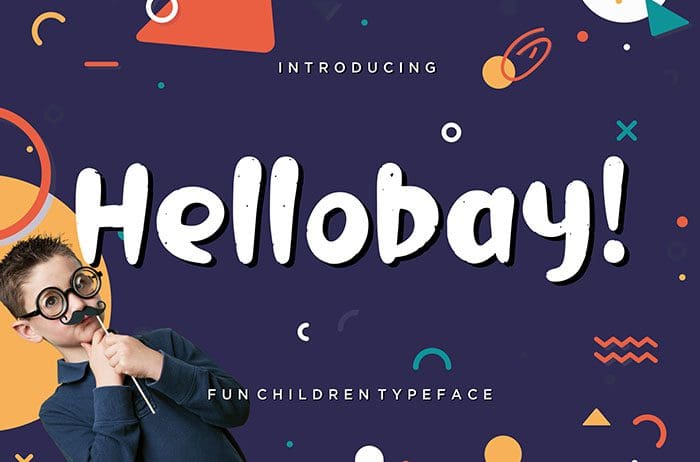
Hellobay Display Font
Hellobay is a fun Display Font which suitable to use for children related occasion. Hellobay is perfect for branding projects, advertisements, and more. Thanks to Creatype Studio for sharing this font! Take a look at this portfolio for more of his stunning fonts.